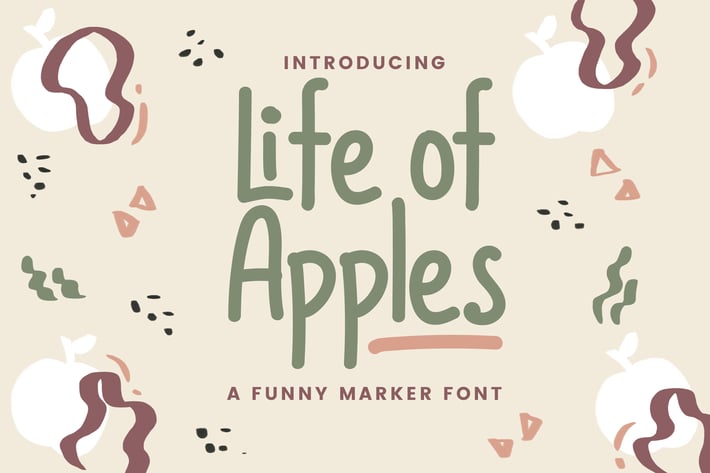
Life of Apples – Comic Handwritting Font
Life of Apples is a Fun Handwriting typeface, perfectly suitable for creating quotes, kids book, lifestyle design such as logos, titles, magazines, and more.
– Lowercase
– Ligature
– Alternate
– Multilingual Support